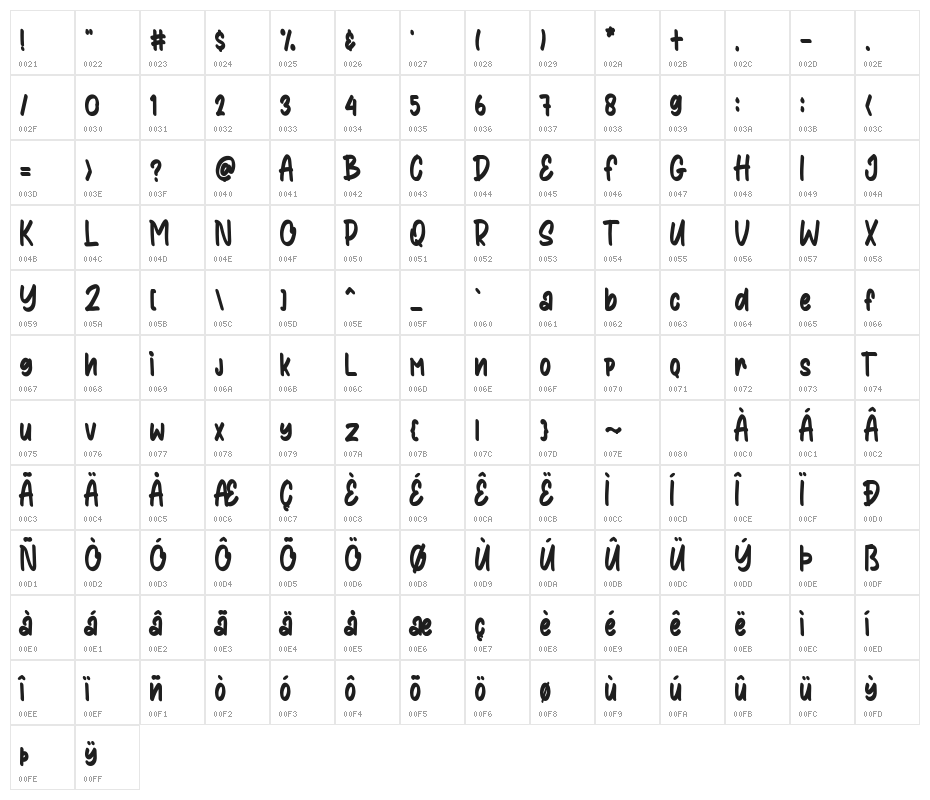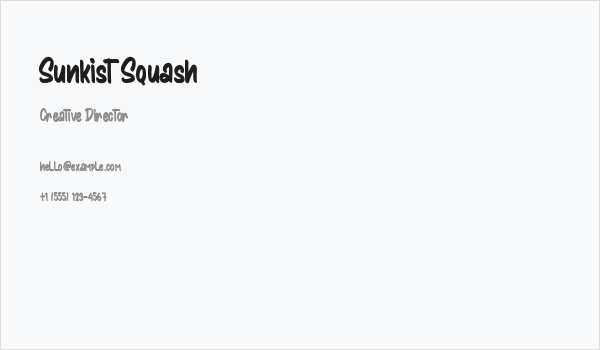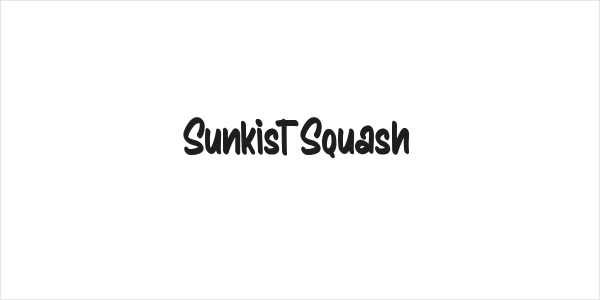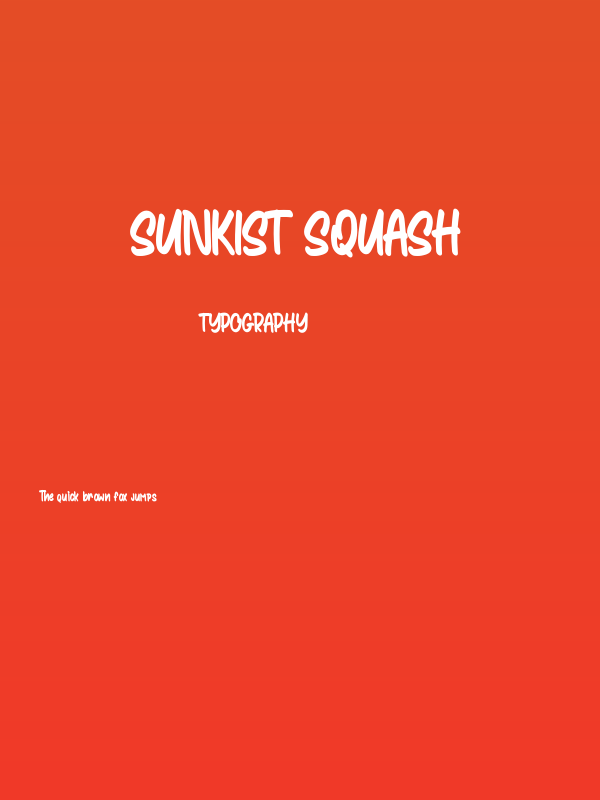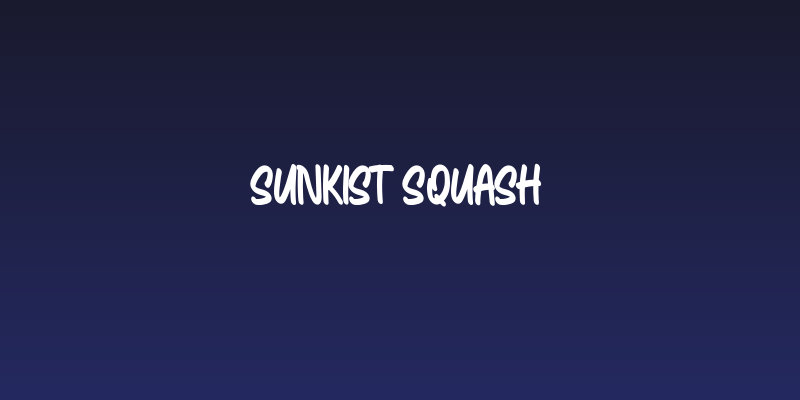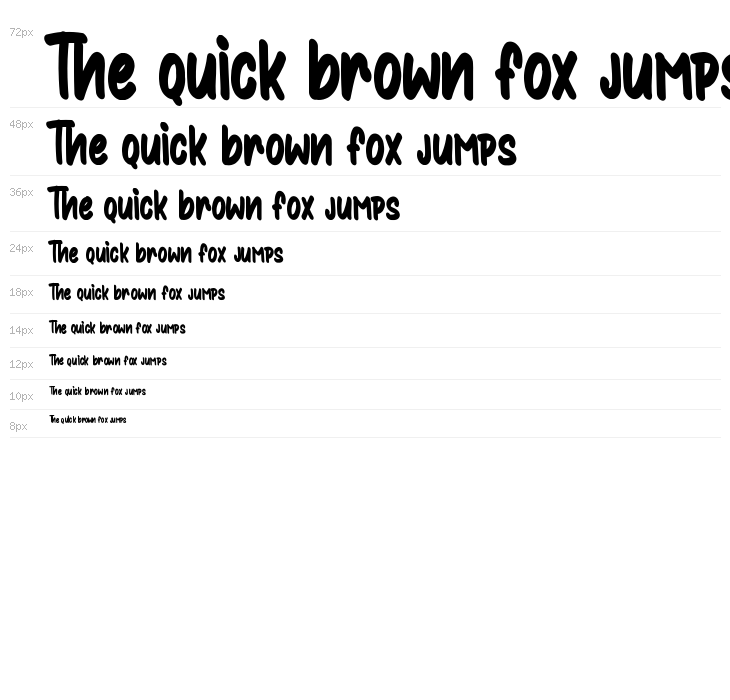
Sunkist Squash Font
Sunkist Squash Description
This font features a playful and bold handwritten style, characterized by its thick strokes and rounded edges. The letters are slightly slanted, giving it a casual and dynamic appearance. The uppercase and lowercase letters maintain a consistent flow, while the numerals and special characters complement the overall style with their bold and expressive forms. The font's informal and friendly nature makes it suitable for projects that require a personal touch.
Overall StylePlayful
Proposed ProjectsIdeal for children's books, playful branding, casual invitations, and social media graphics.